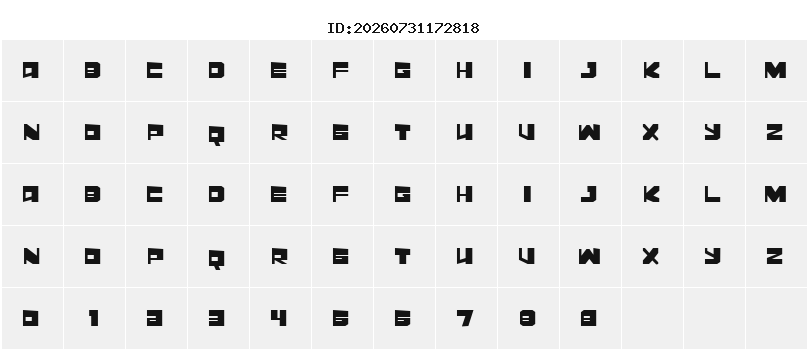
Leningrad Disco Preview
• Font Name: Leningrad Disco
• Full Font Name: Leningrad Disco
About Leningrad Disco.ttf
Leningrad Disco.ttf is a modern, elegant sans-serif font designed for ultimate readability and visual harmony. Perfect for branding, headlines, web design, and print materials.